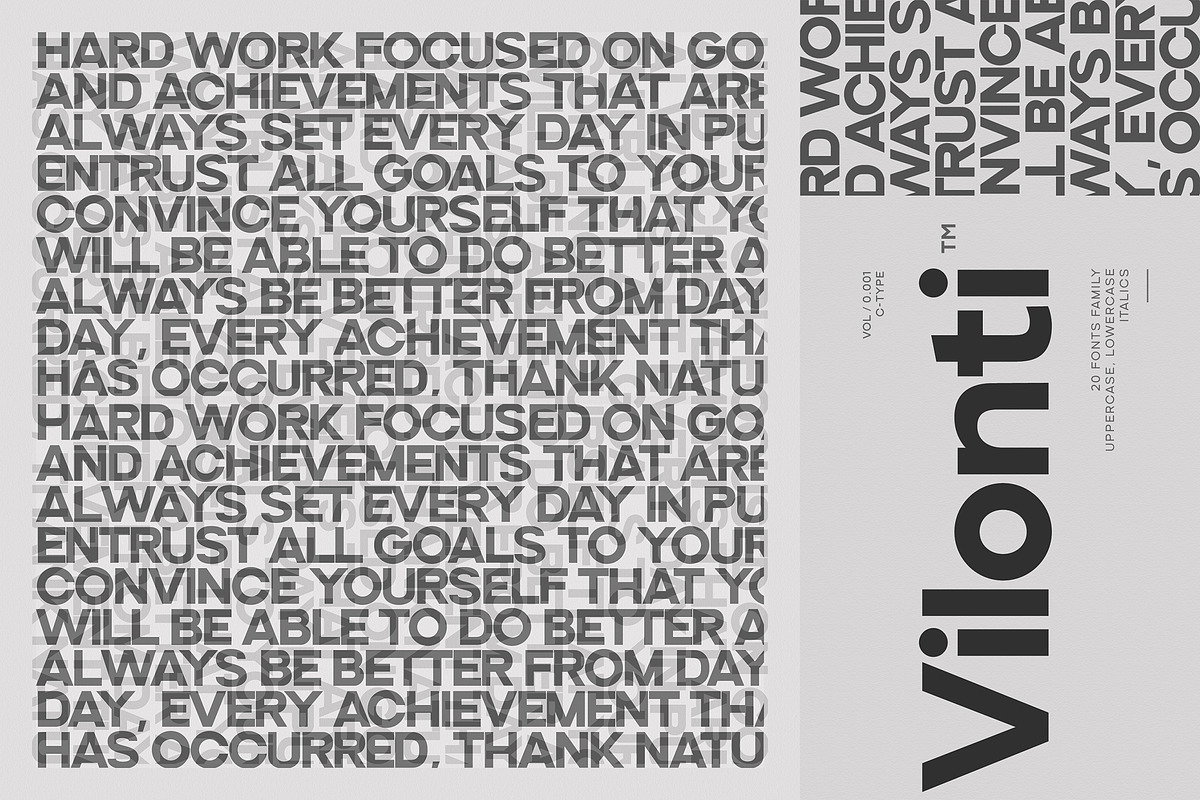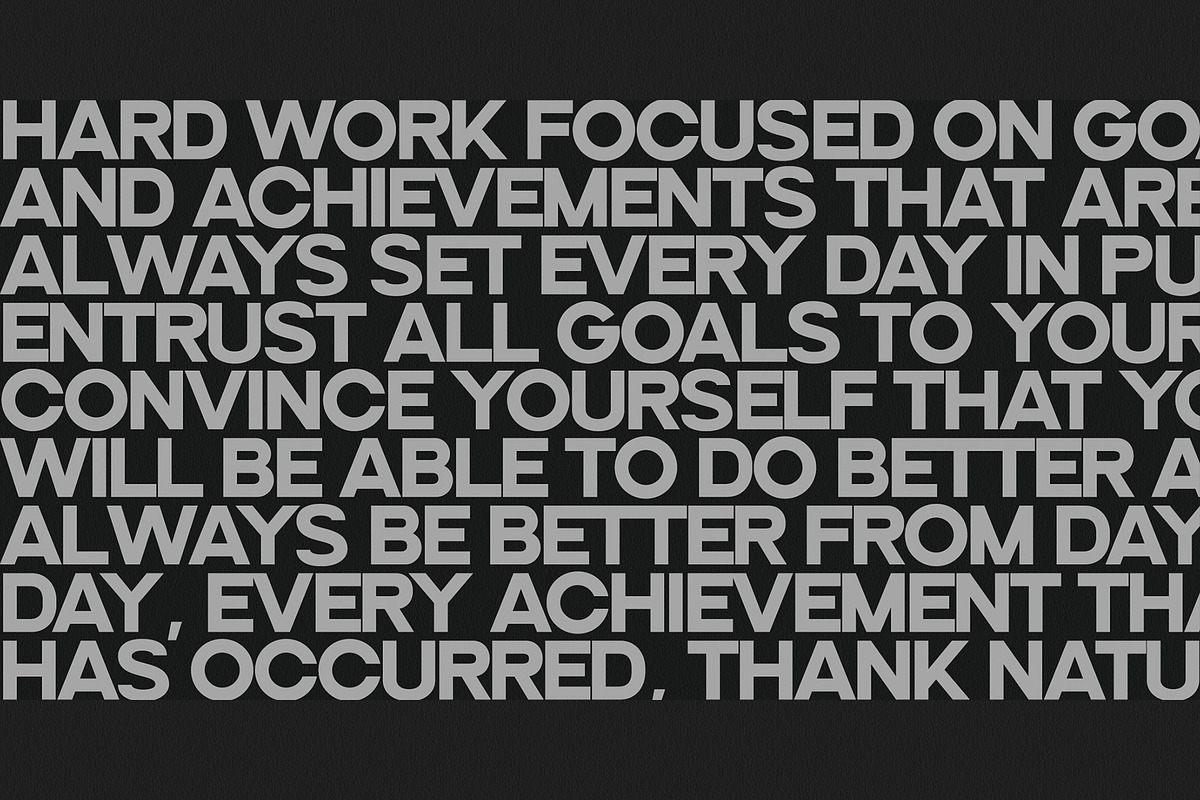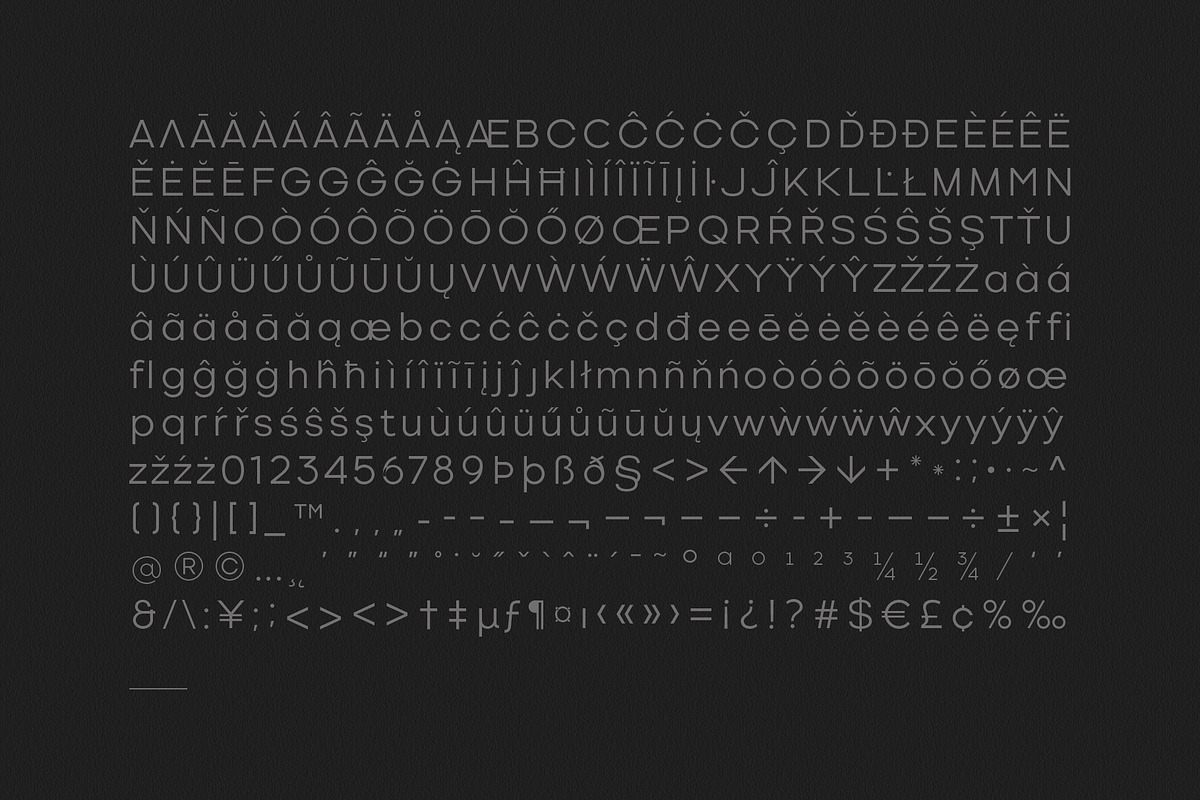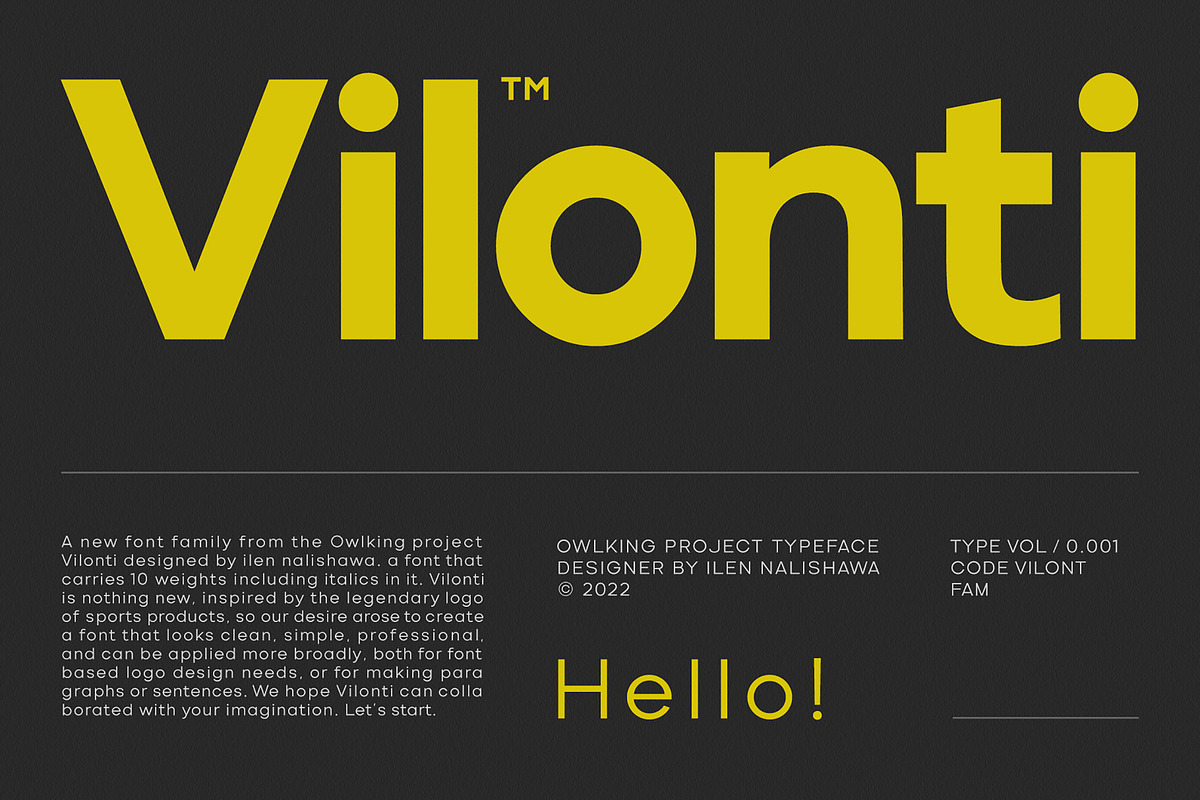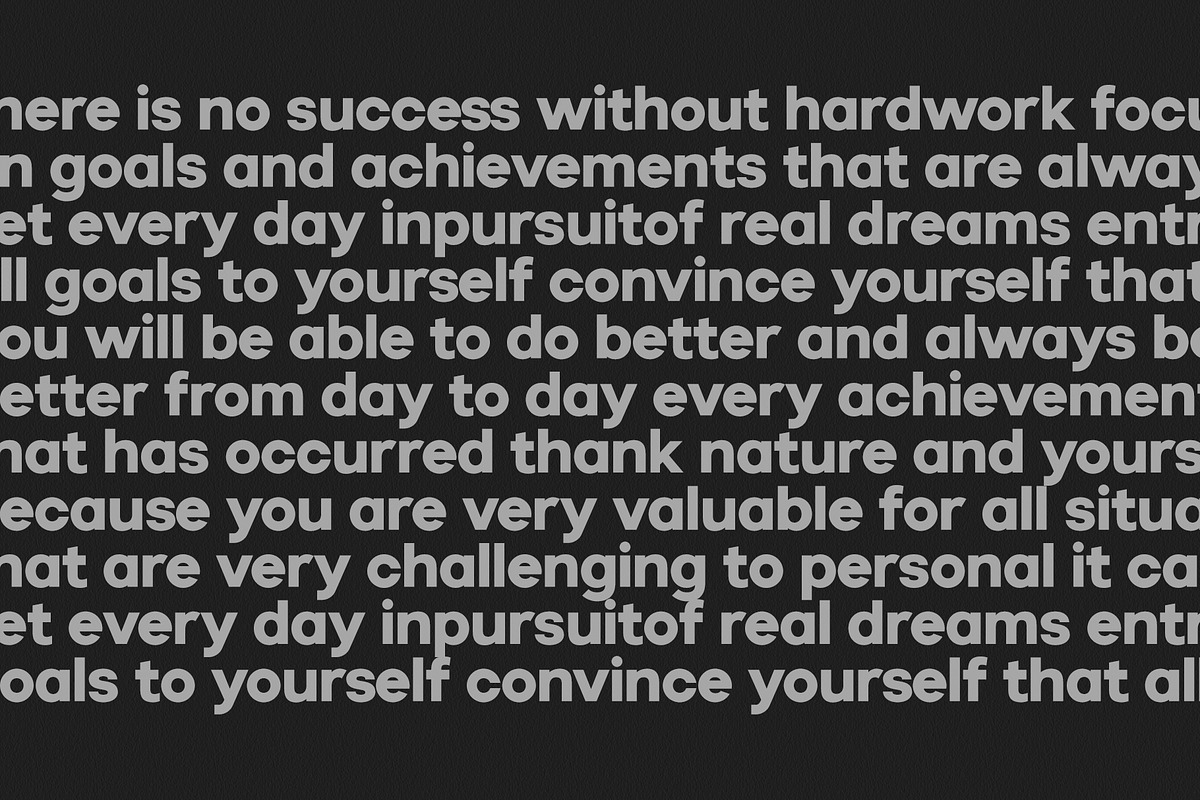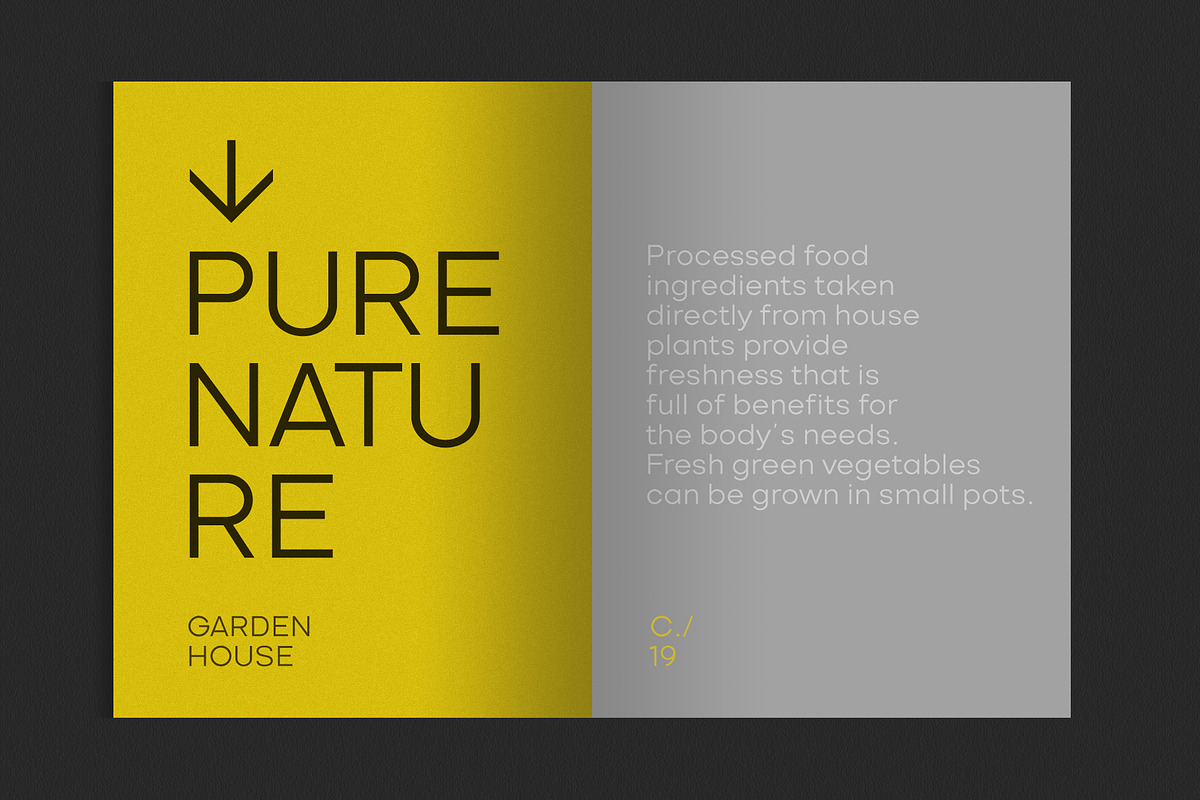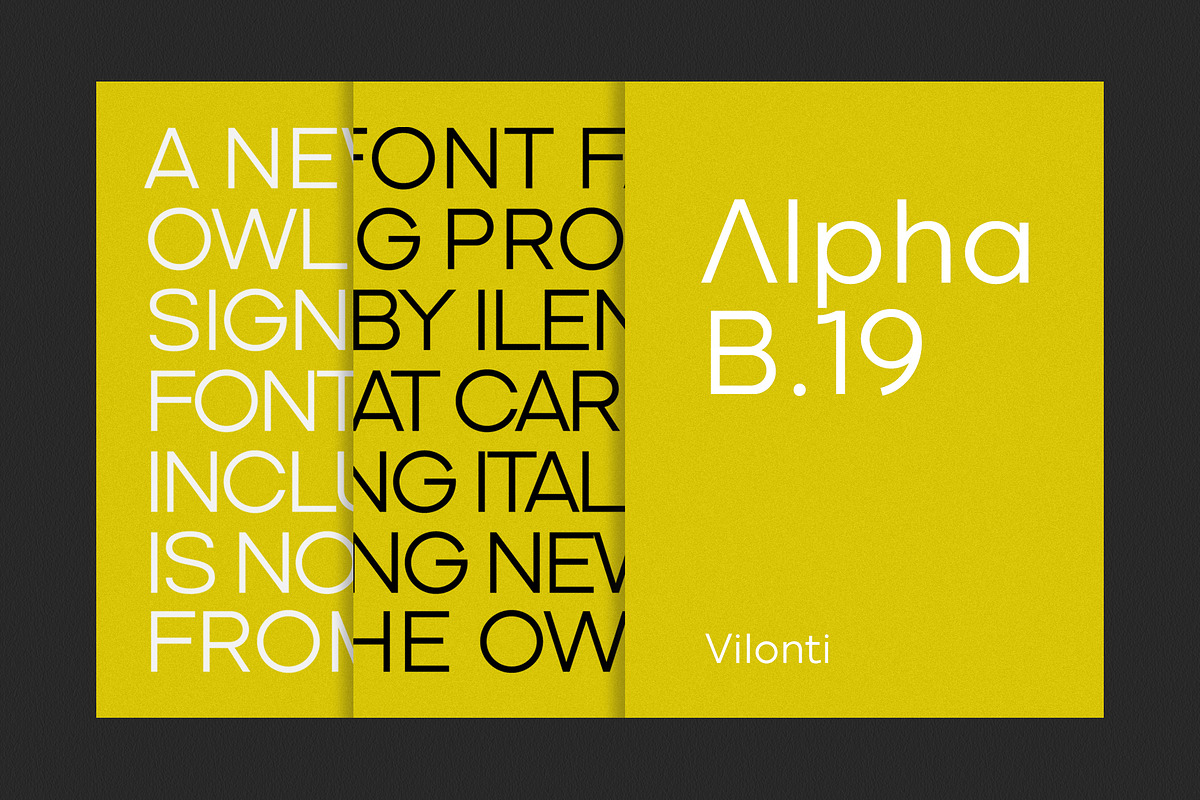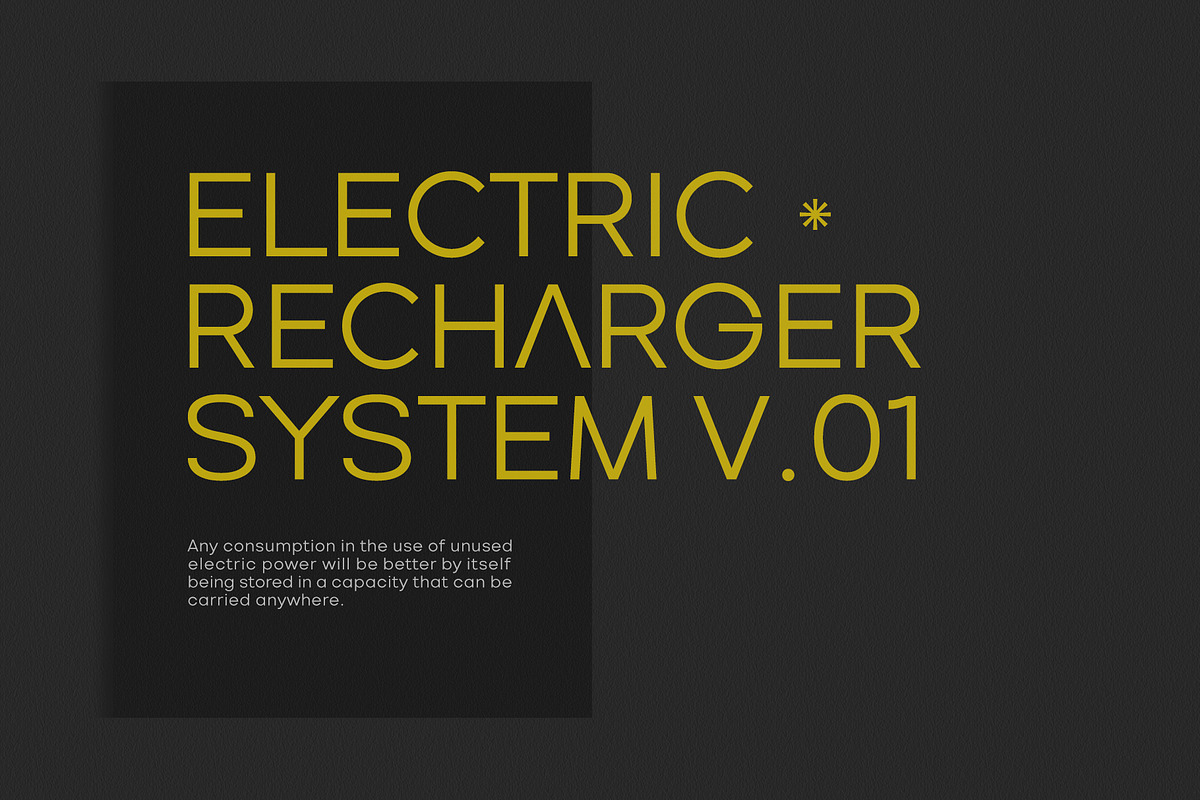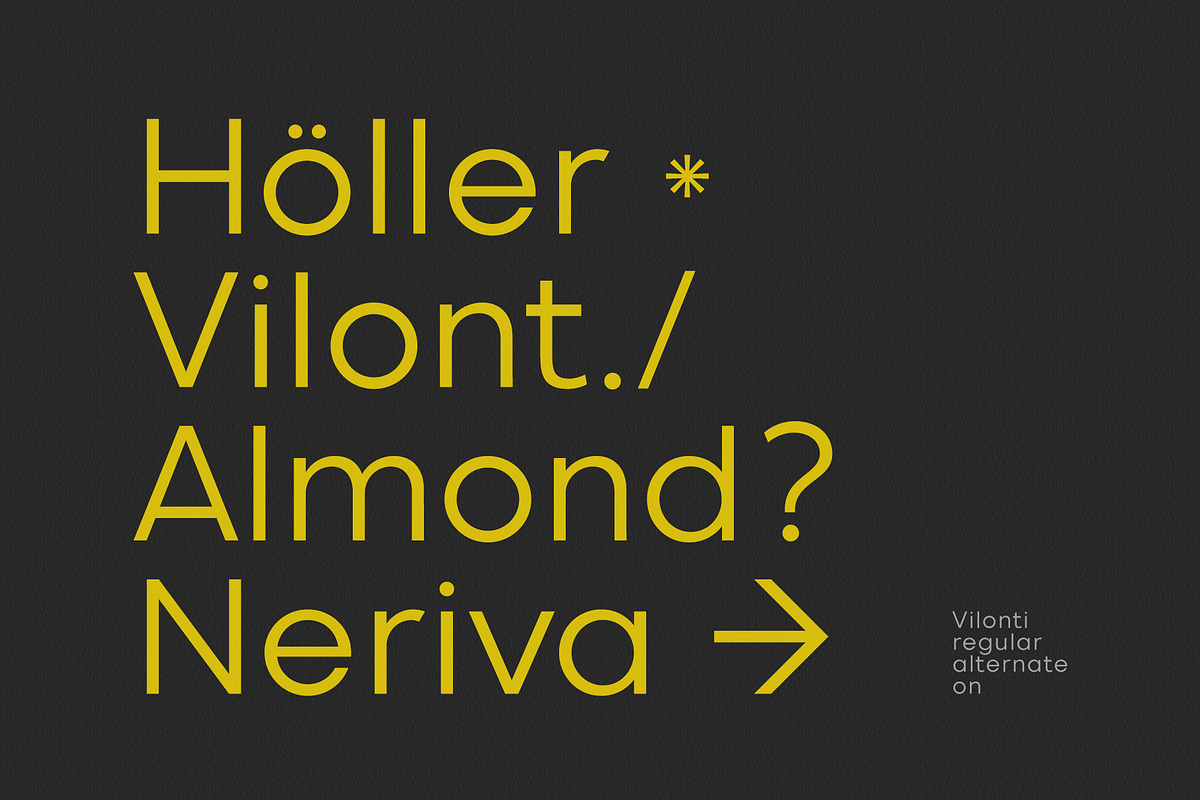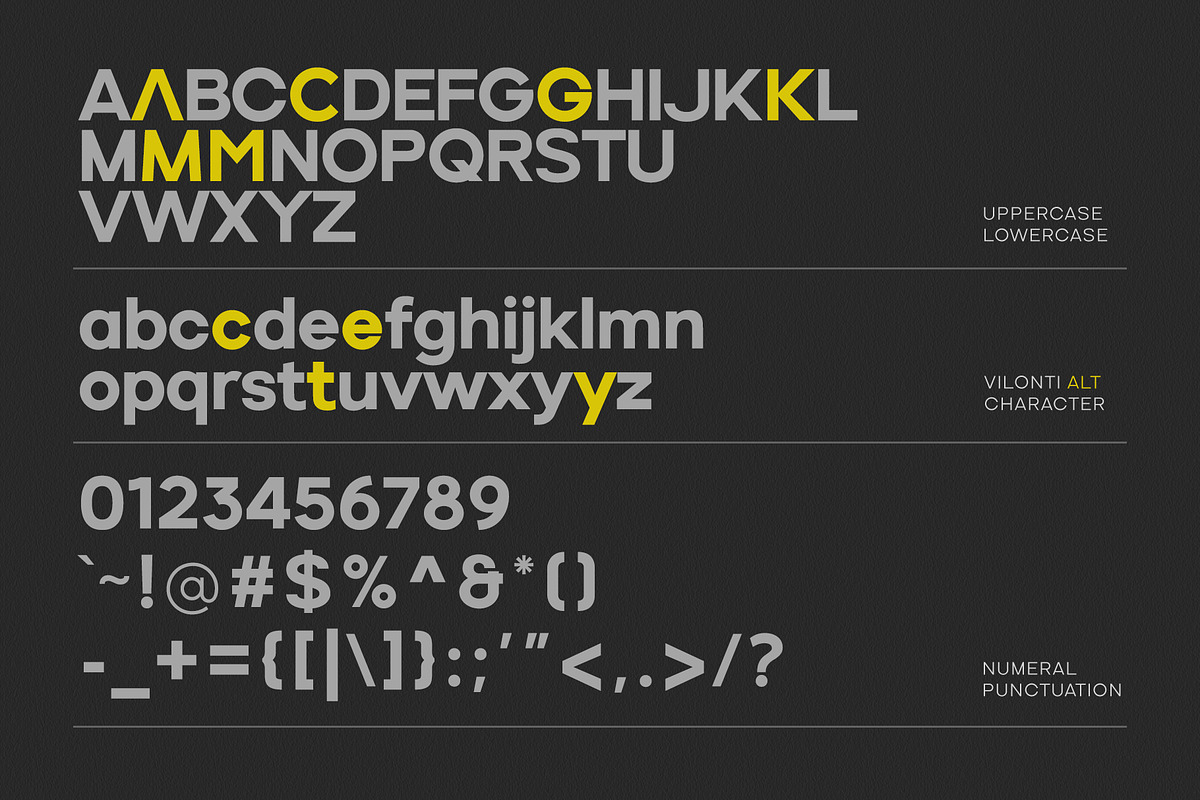
Vilonti
a new font family from the Owlking project Vilonti designed by ilen nalishawa. a font that carries 20 weights including italics in it. Vilonti inspired by the legendary logo of sports products, so our desire arose to create a font that looks clean, simple, professional, and can be applied more broadly, both for font based logo design needs, or for making paragraphs or sentences. We hope Vilonti can collaborated with your imagination. Let's start desiging. be happy.